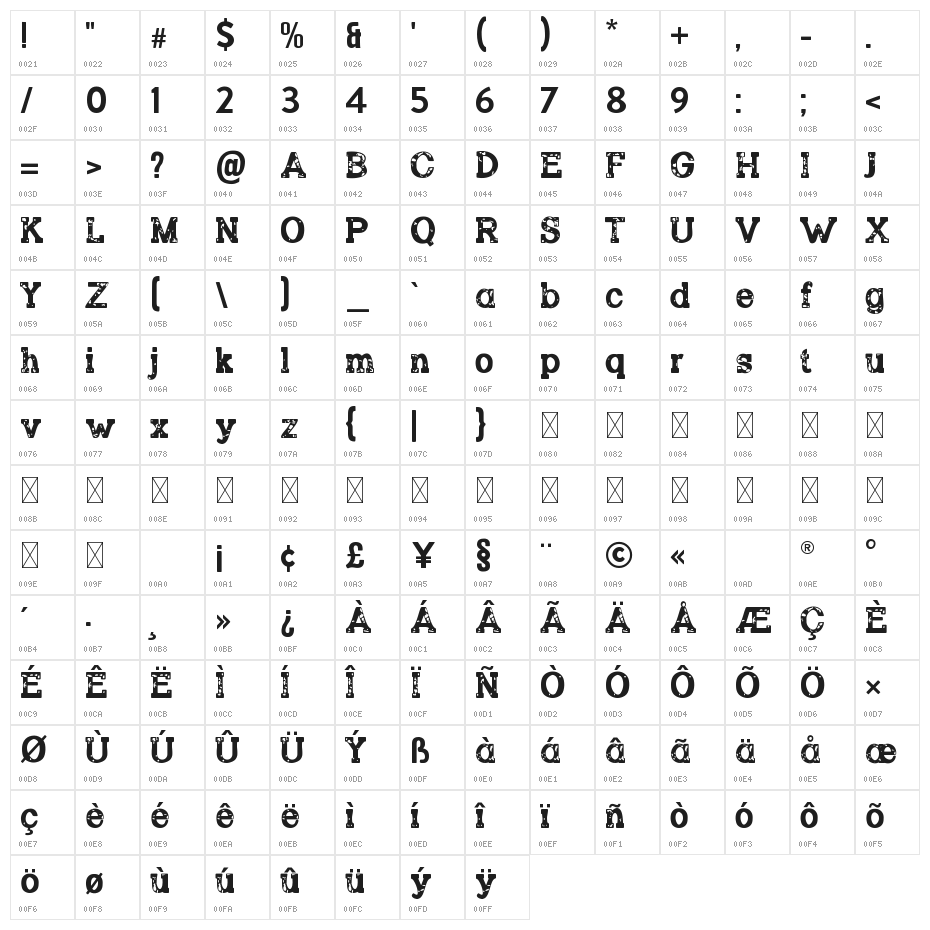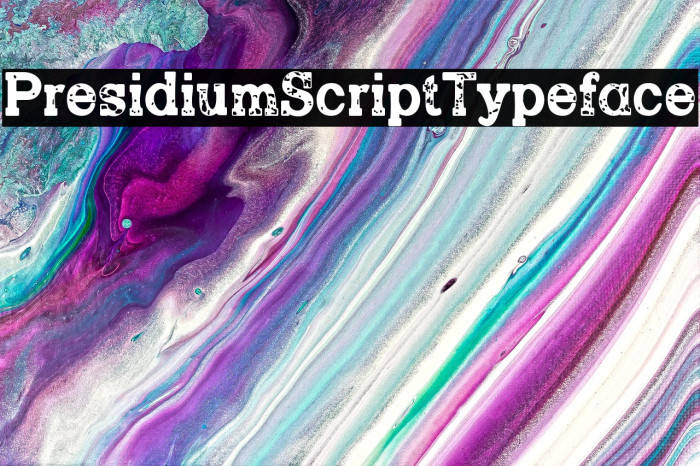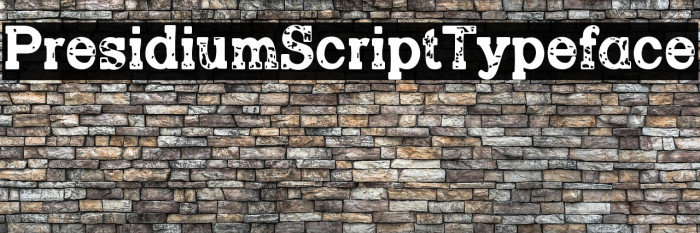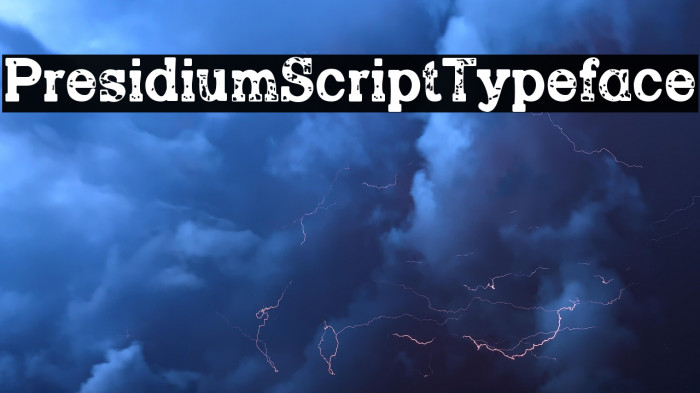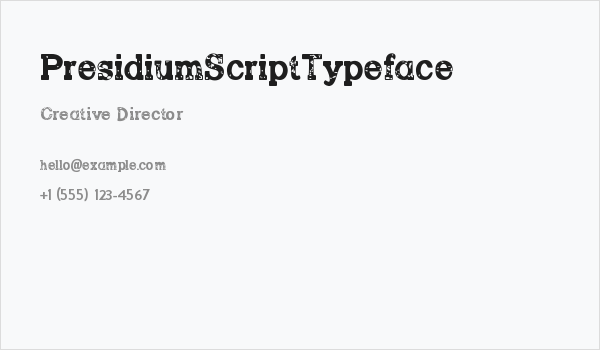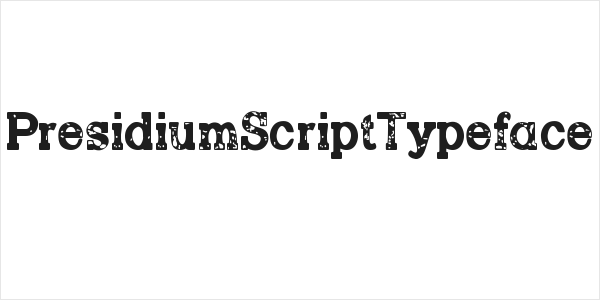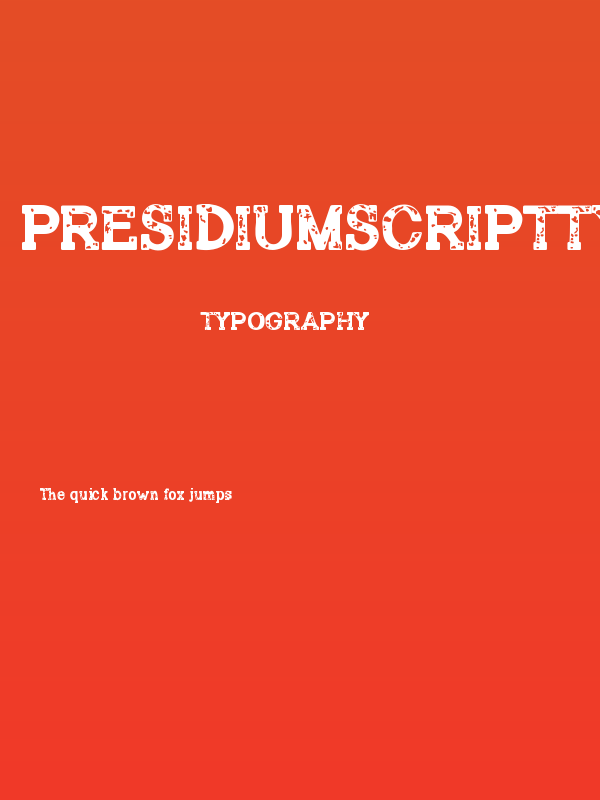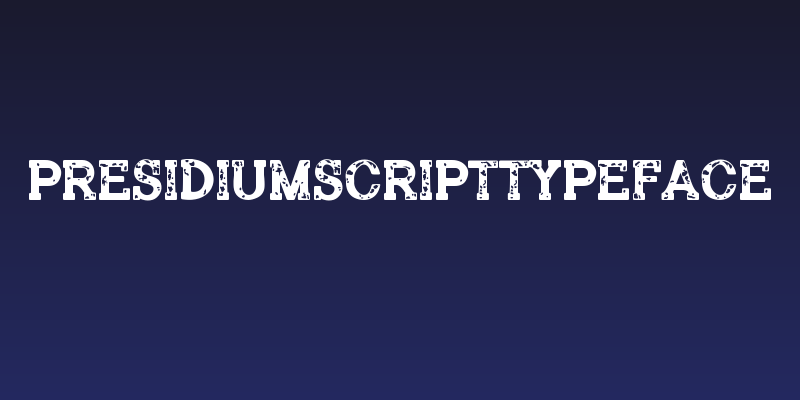
PresidiumScriptTypeface Font
PresidiumScriptTypeface Description
This font features a bold and decorative style with a distressed texture that adds a vintage and rugged feel. The uppercase and lowercase letters are consistent in their boldness, with a playful yet strong presence. The numbers and special characters maintain the same aesthetic, making it suitable for eye-catching designs. The font's unique texture and boldness make it stand out, ideal for projects that require a touch of creativity and flair. Its decorative nature suggests a use in branding, posters, or any design that benefits from a bold statement.
| Overall Style | Vintage, Decorative |
| Proposed Projects | Ideal for branding, posters, logos, and creative design projects. |